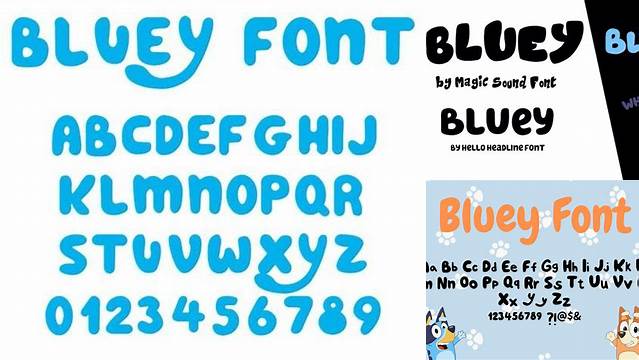
Hey guys! Are you a big fan of the adorable Bluey animated series? Do you find yourself captivated by its charming characters, heartwarming stories, and, yes, even its distinctive typography? If you're nodding your head enthusiastically, then you've come to the right place! In this comprehensive guide, we're diving deep into the world of the Bluey font, exploring everything from what it is and why it's so popular to where you can find it for your own creative projects. Whether you're a graphic designer, a parent planning a Bluey-themed birthday party, or simply a fan who wants to add a touch of Bluey magic to your creations, this article is your ultimate resource. The Bluey font is more than just a typeface; it's a key element of the show's visual identity, evoking a sense of playfulness, warmth, and family connection. Its rounded edges and friendly appearance perfectly complement the show's overall tone, making it instantly recognizable and appealing to audiences of all ages. The font's unique characteristics contribute significantly to the show's branding, making it a sought-after asset for fans and creators alike. In the following sections, we'll discuss the specifics of the Bluey font, its origins, and its unique characteristics that make it so special. We'll also delve into the legal aspects of using the font, ensuring that you can incorporate it into your projects responsibly and ethically. Furthermore, we'll explore a variety of creative applications for the Bluey font, providing inspiration and ideas for how you can use it to enhance your designs and projects. So, buckle up and get ready to embark on a font-astic journey into the world of Bluey typography! We're confident that by the end of this guide, you'll have a thorough understanding of the font and the resources you need to start using it in your own creative endeavors. Let's get started and unleash your creativity with the Bluey font!
What is the Bluey Font? Decoding the Typography
So, what exactly is the Bluey font? This is a question that many fans and designers alike have asked, and the answer is a bit more nuanced than you might expect. The typography used in the Bluey animated series isn't a single, readily available font that you can simply download and install. Instead, it's a custom-designed typeface created specifically for the show. This custom design is what gives Bluey its unique visual identity and contributes to its overall charm. The Bluey font is characterized by its rounded, soft edges and playful, slightly whimsical appearance. It evokes a sense of warmth, friendliness, and approachability, perfectly aligning with the show's themes of family, fun, and imagination. The font's design is carefully crafted to be both legible and visually appealing, making it suitable for a wide range of applications, from on-screen text to printed materials. Because the Bluey font is custom-made, it's not directly available for free download in the same way as commercially available fonts like Arial or Times New Roman. This means that if you're looking to use the exact Bluey font in your projects, you'll need to explore alternative options, which we'll discuss in detail later in this guide. However, the fact that the font is custom-designed only adds to its exclusivity and appeal. It's a testament to the attention to detail that the show's creators have put into every aspect of Bluey, from the animation and storytelling to the typography. In this section, we've established that the Bluey font is a custom-designed typeface that contributes significantly to the show's visual identity. We've also highlighted its key characteristics and explained why it's not directly available for free download. In the next sections, we'll explore where you can find similar fonts and how you can use them in your projects to capture the essence of Bluey.
Where to Find Bluey Font Alternatives: Fontz Co and Beyond
Since the official Bluey font isn't available for public use, you might be wondering where you can find similar fonts that capture the show's playful and friendly vibe. Fortunately, there are several excellent alternatives out there that you can use to achieve a similar look and feel in your projects. One popular resource that often comes up in searches for the Bluey font is Fontz Co. Fontz Co is a website that offers a wide variety of fonts, including many that resemble the Bluey font in terms of their rounded edges and friendly appearance. When searching for Bluey font alternatives on Fontz Co, you'll want to look for fonts that have a similar aesthetic β think rounded sans-serif fonts with a slightly whimsical or playful touch. Some keywords to use in your search include "rounded," "friendly," "playful," and "sans-serif." However, Fontz Co is just one of many resources available for finding fonts. Other popular websites for downloading fonts include DaFont, Google Fonts, and FontSpace. Each of these websites offers a vast library of fonts, both free and paid, and you're likely to find several options that would work well as Bluey font alternatives. When browsing these websites, it's helpful to use the same keywords mentioned earlier to narrow down your search. You can also filter your results by font type (e.g., sans-serif), style (e.g., rounded), and license (e.g., free for personal use). In addition to these online resources, you can also find font alternatives through graphic design software like Adobe Illustrator and Adobe Photoshop. These programs often come with a selection of pre-installed fonts, and you can also purchase and install additional fonts from various sources. Remember, while you may not be able to find the exact Bluey font, there are plenty of excellent alternatives available that can help you capture the show's unique visual style. The key is to look for fonts that share the same characteristics β rounded edges, a friendly appearance, and a touch of playfulness. By exploring the resources mentioned in this section, you'll be well on your way to finding the perfect font for your Bluey-inspired projects.
Creative Applications: Ideas for Using Bluey Font Alternatives
Now that you know where to find Bluey font alternatives and how to use them legally, let's explore some creative applications for these fonts. The Bluey font's playful and friendly aesthetic makes it perfect for a wide range of projects, from personal creations to professional designs. If you're a parent planning a Bluey-themed birthday party, Bluey font alternatives can be a fantastic way to add a touch of authenticity to your invitations, decorations, and party favors. You can use the font to create custom banners, signs, and name tags that perfectly capture the show's spirit. For example, imagine a birthday banner that reads "Happy Birthday!" in a font that closely resembles the Bluey typeface. Or, picture personalized name tags for each guest, featuring their names in the same friendly font. The possibilities are endless! Beyond birthday parties, Bluey font alternatives can also be used for a variety of other personal projects. If you're a scrapbooker, you can use the font to create titles and captions that complement your Bluey-themed photos and memories. If you're a teacher, you can use the font to design classroom posters, worksheets, and other educational materials that are both engaging and visually appealing. The font's playful nature makes it particularly well-suited for projects aimed at children, but it can also be used effectively in designs for adults. In the professional realm, Bluey font alternatives can be used to create logos, website headers, and marketing materials for businesses that want to project a friendly, approachable image. For example, a children's bookstore or a family-friendly restaurant might use the font in their branding to convey a sense of warmth and playfulness. When using Bluey font alternatives, it's important to consider the overall tone and message of your project. The font's casual and whimsical style may not be appropriate for all applications, but it can be a fantastic choice for projects that call for a touch of fun and personality. By experimenting with different fonts and layouts, you can create designs that are both visually appealing and effective at communicating your message.
Conclusion: Embrace the Bluey Spirit in Your Designs
In conclusion, while the official Bluey font may be a custom-designed typeface not readily available for download, the spirit of Bluey's typography can certainly be captured through the use of similar fonts. We've explored the essence of the Bluey font, highlighting its rounded edges, friendly appearance, and overall playful vibe. We've also discussed various resources, including Fontz Co and other font websites, where you can find excellent alternatives that evoke the same warmth and charm. Understanding the legal aspects of font usage, including copyright and licensing, is paramount. Always ensure you're using fonts in compliance with their terms, whether for personal or commercial projects. This respect for intellectual property ensures ethical design practices. The creative applications for Bluey font alternatives are vast and varied. From personal projects like birthday party invitations and scrapbooks to professional designs such as logos and marketing materials, the font's versatility shines. Itβs about embracing the Bluey spirit β a sense of fun, family, and warmth β in your designs. Ultimately, the goal is to find a font that not only looks similar to the Bluey typeface but also resonates with the project's overall message and tone. By experimenting with different fonts and layouts, you can create designs that are both visually appealing and effectively communicate your intended message. So, go ahead, embrace the Bluey spirit in your designs! Explore the world of rounded, friendly fonts, and let your creativity flow. Whether you're creating a Bluey-themed birthday invitation or designing a logo for a family-friendly business, the right font can make all the difference. Remember, it's not just about finding a font that looks like the Bluey typeface; it's about capturing the essence of the show β its warmth, its playfulness, and its unwavering focus on family and connection. With the resources and insights provided in this guide, you're well-equipped to embark on your font-finding journey and create designs that truly capture the Bluey magic. Happy designing!